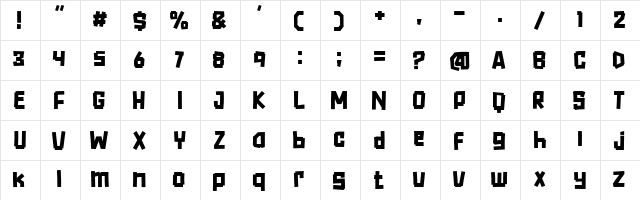
Low Batt Regular
Design Context for Low Batt Typeface
Low Batt is a composed and adaptable typeface that performs quietly and consistently across a wide range of design contexts.